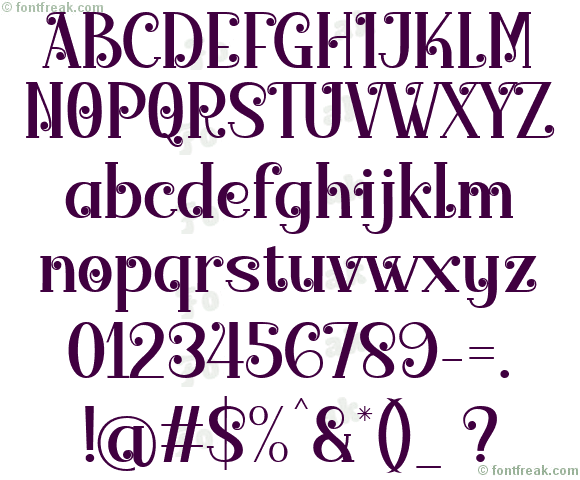
Merrycle
Merrycle Carved
Merrycle, designed by Situjuh Nazara, is a striking display font that captures attention with its unique carved aesthetic. This decorative typeface features a blend of intricate and bold strokes, making it ideal for designs that require a touch of elegance and sophistication. The font exhibits a moderate stroke weight with subtle contrasts, enhancing its visual appeal while ensuring readability. The spacing between characters is well-considered, allowing for a balanced appearance that draws the eye without overwhelming the viewer.
This versatile font is perfect for various applications, including wedding invitations, where its elegant design can convey a sense of romance and celebration. It also works beautifully for movie posters, lending a dramatic flair that can capture the essence of a film. Restaurant menus can benefit from the Merrycle font, as it adds a touch of class and character, enticing customers with its unique style. Additionally, it is well-suited for branding projects, allowing small business owners to create memorable logos that stand out in a competitive market.
What sets Merrycle apart is its ability to blend artistry with functionality. Its carved elements add depth and character, making it a standout choice for anyone looking to elevate their design projects. Whether you are crafting an elegant invitation or a captivating poster, Merrycle is sure to leave a lasting impression.